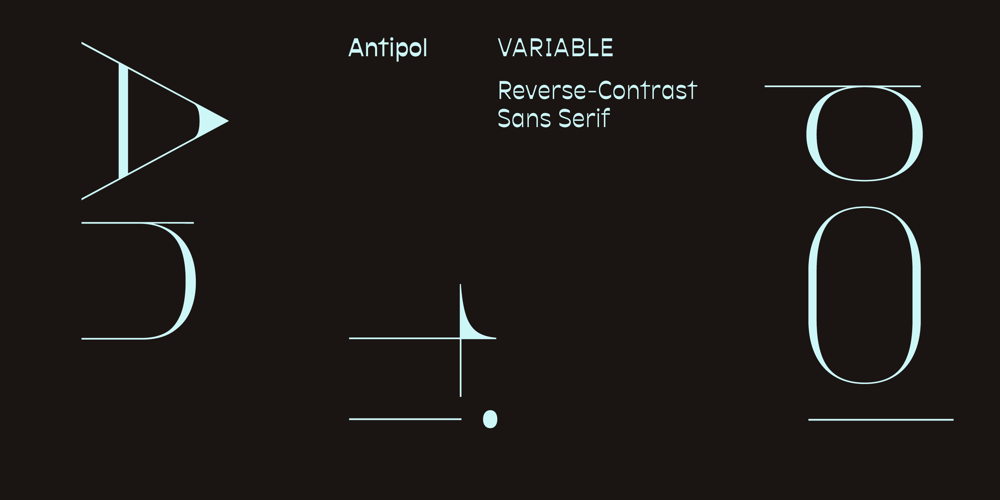
Antipol VF Font Family was designed by Roland Hörmann and published by phospho. Antipol VF contains 2 styles and family package options. With Antipol Variable, the reversed stress font was supplemented with Wide and Extended cuts in the Hairline weight. The ability to stretch single letters extremely wide is an exclusive goodie of the Variable version.Antipol is a Sans Serif design that reverses the conventions of a regular Latin Sans Serif. With a weight emphasis on the horizontals and its vertical terminals Antipol radiates a 1970s charisma known from the like of Antique Olive.Its modern and avantgardistic attributes are most pronounced in the Hairline weight, where ultra thin lines meet distinctive arrowhead-corners. This particular weight is meant for display settings, think full-page magazine titles or posters.Antipol Wide and Antipol Extended are a generous statement for graphic design with enough space to let the type breathe: art catalogs, lead texts, invitations, letterheads or brand identity.Any style comes with a wide range of OpenType features that goes beyond a standard display font: Small Caps, Proportional and Tabular Oldstyle Figures and Lining Figures, Fractions, and much more.